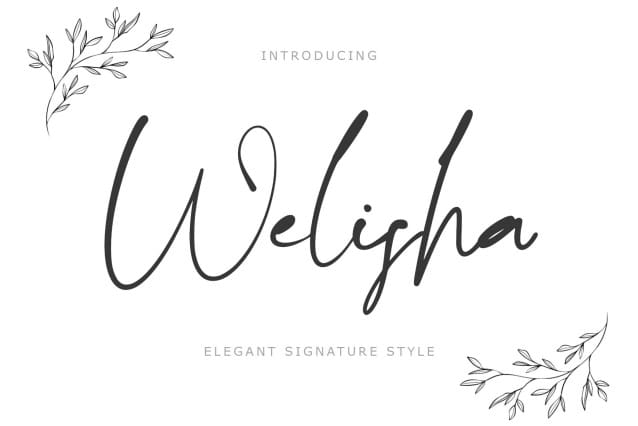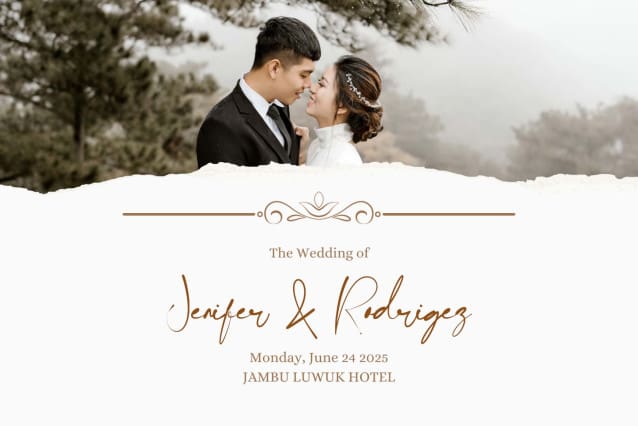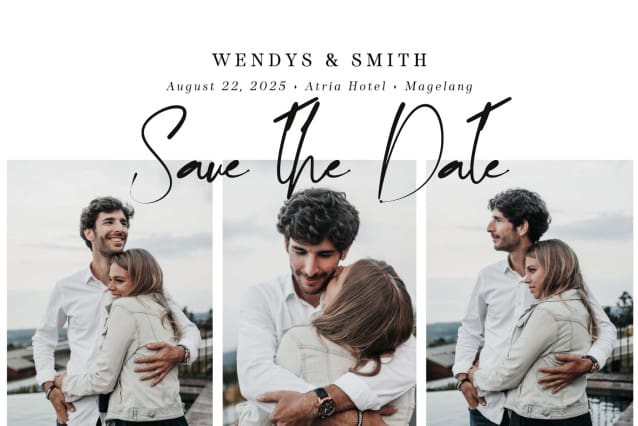
Welisha Handwritten Font
Welisha Handwritten Font is a charming handwritten typeface exuding sweetness and freshness. Its playful strokes and organic flow evoke a sense of warmth and affection, ideal for conveying heartfelt messages on greeting cards, posters, and social media graphics. Just Love adds a delightful touch to any design project.